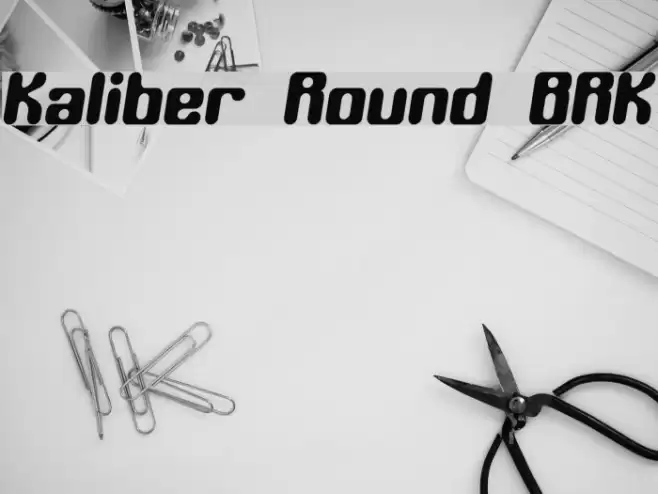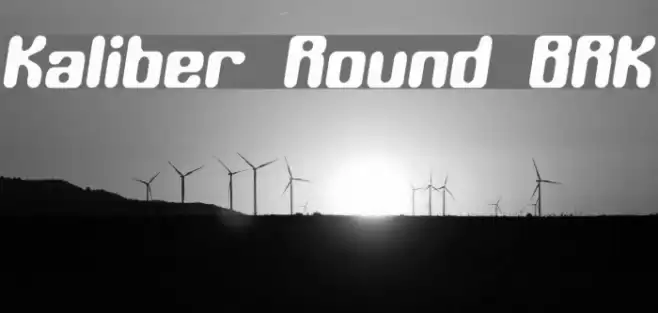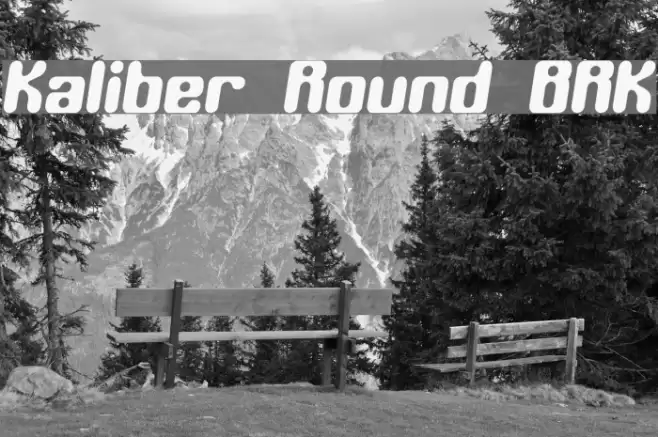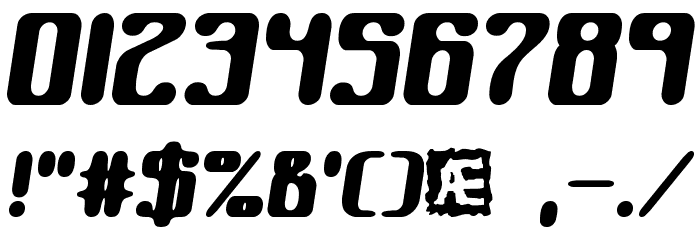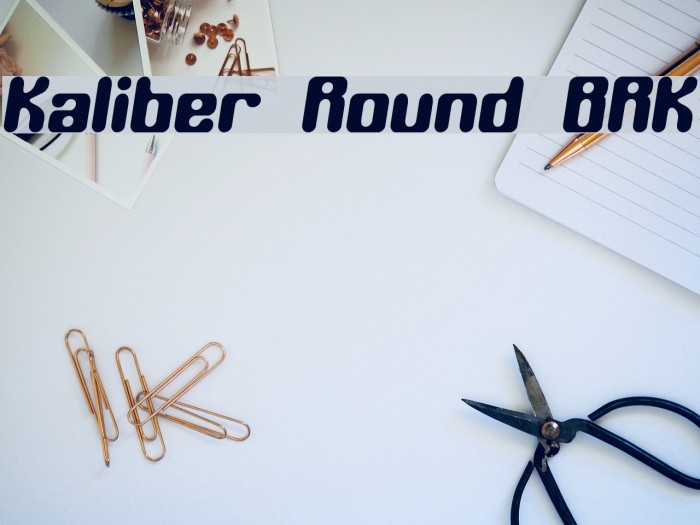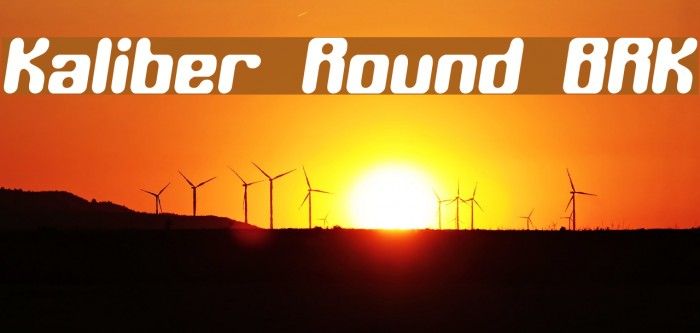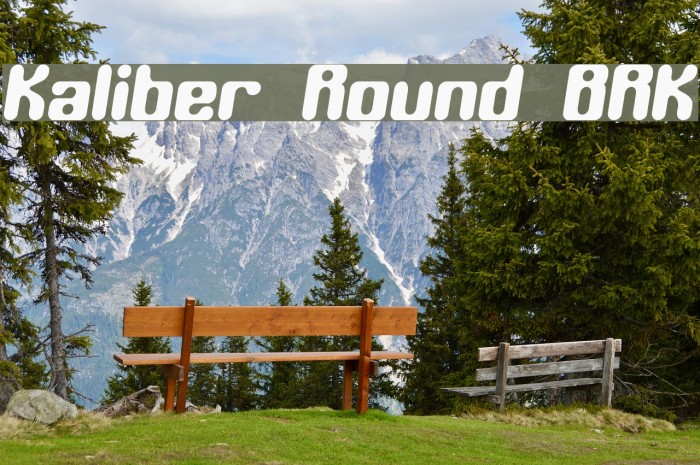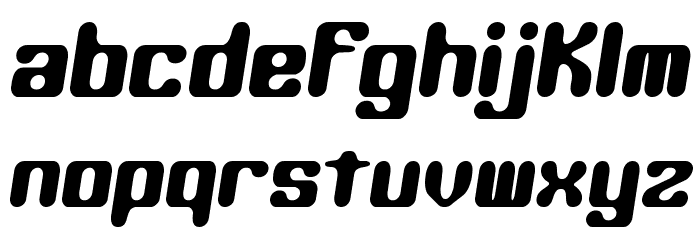
Kaliber Round BRK Font
Kaliber Round BRK Description
This font features a bold and rounded style with a playful and modern aesthetic. The characters are thick and have a smooth, flowing appearance, giving them a friendly and approachable look. The rounded edges soften the overall feel, making it suitable for casual and informal designs. The uppercase and lowercase letters maintain a consistent style, with slight variations in the curves and angles that add a touch of uniqueness. The numbers and special characters are designed to match the overall theme, ensuring a cohesive look across all text elements.
A bold, rounded font with a playful and modern style from Futuristic fonts.
- Proposed Projects: Ideal for children's books, playful branding, casual posters, and fun social media graphics.